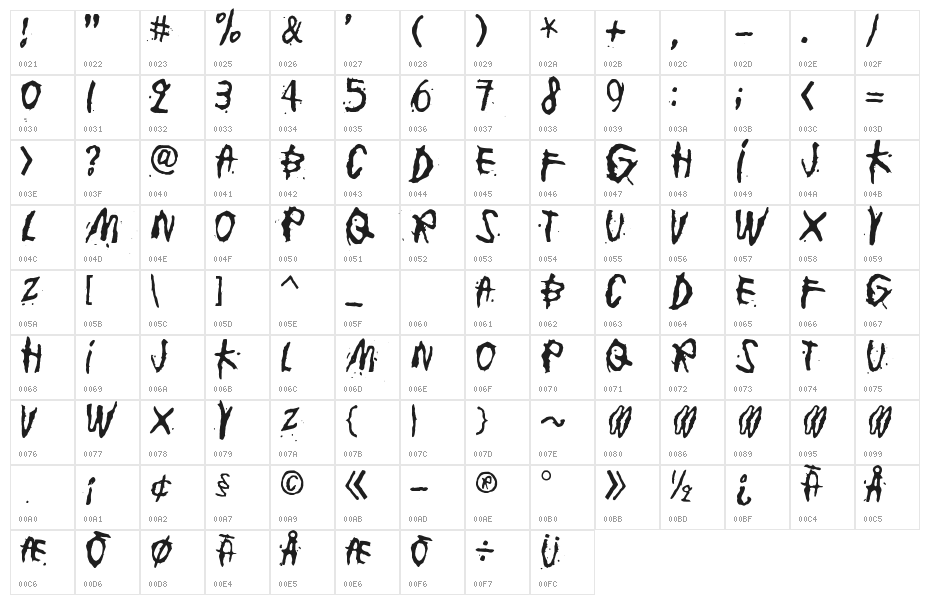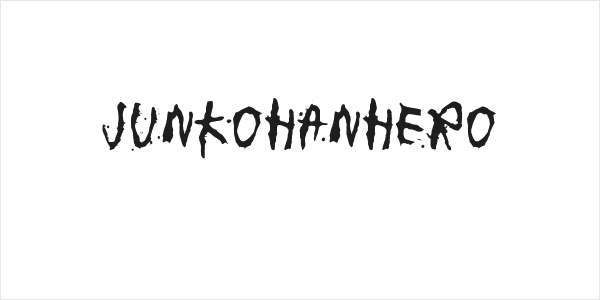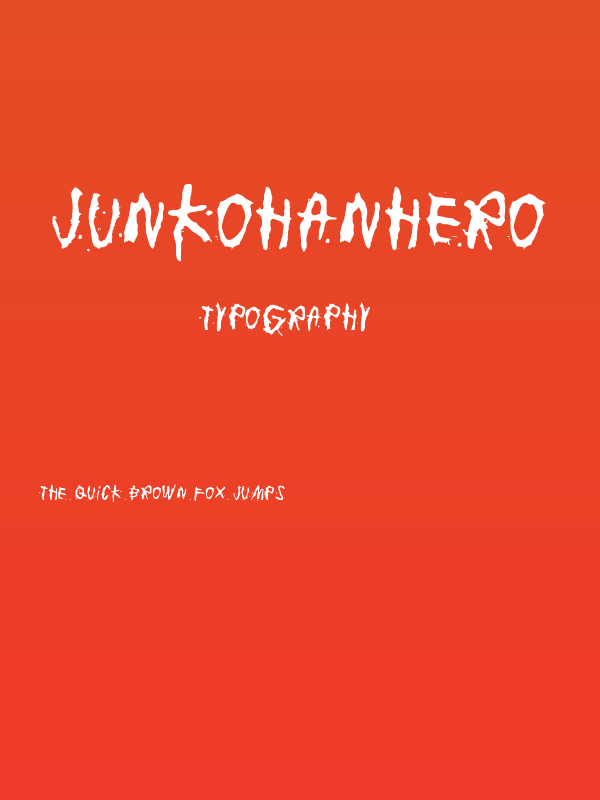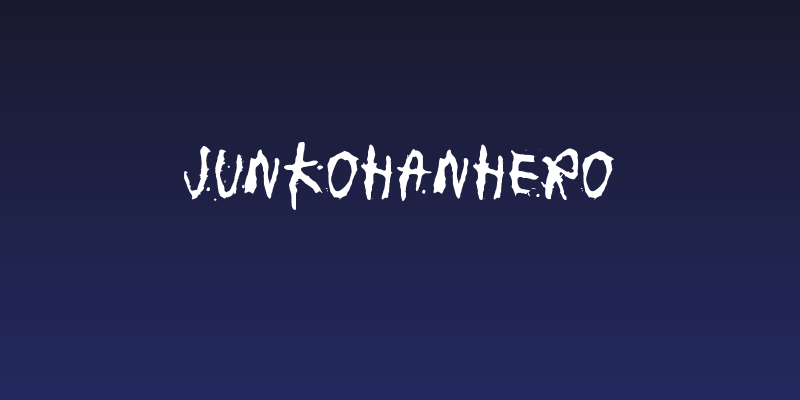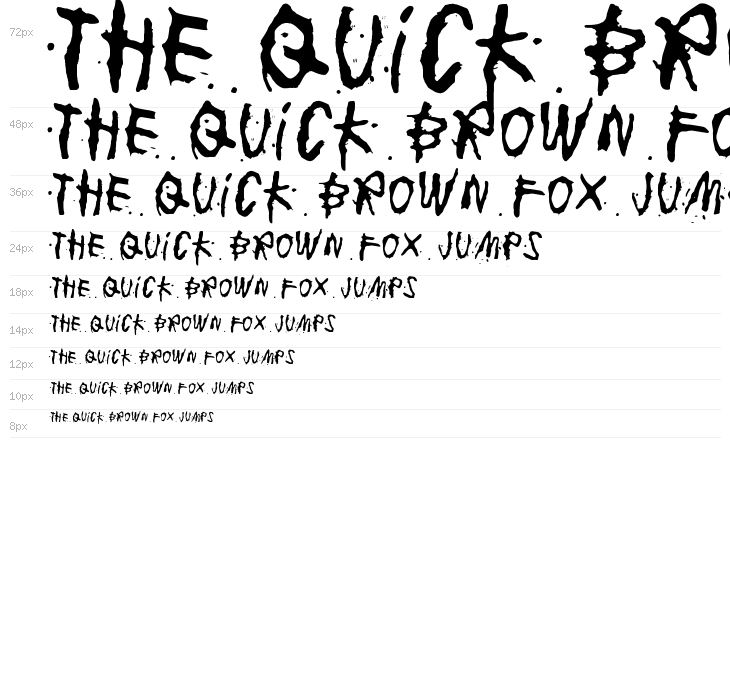
junkohanhero Font
junkohanhero Description
This font features a bold, expressive style with a hand-drawn appearance, characterized by irregular strokes and splatters that give it a raw, artistic feel. The letters are unevenly shaped, with varying thicknesses that create a dynamic and energetic look. The uppercase and lowercase letters maintain a consistent style, while the numbers and special characters add to the font's unique personality. This font is ideal for projects that require a bold statement or an artistic touch, such as posters, album covers, or creative branding. Its distinctive style makes it stand out, capturing attention with its unconventional and artistic flair.
| Overall Style | Artistic, Expressive, Raw |
| Use Case | Headlines, Logos, Artistic projects |
| Proposed Projects | Ideal for posters, album covers, creative branding, and artistic projects. |